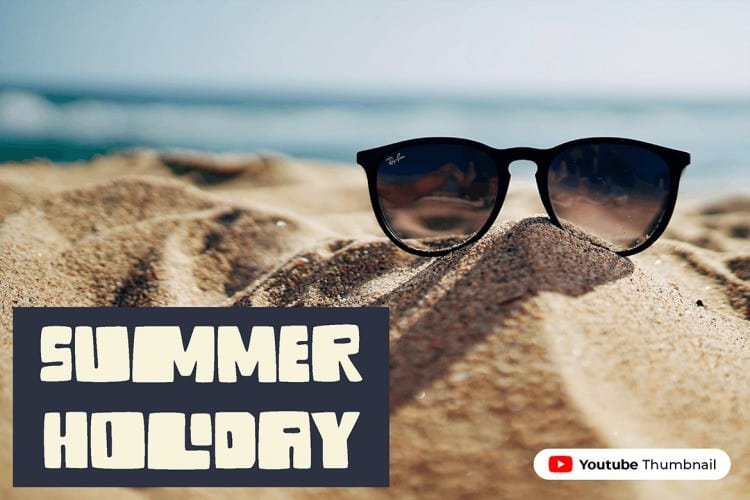
The Tide Display Font is great playful font designed in 2020. It’s a simple playful font with clean lines. Wave sound, wind blows, the rise of the tide, and surfer slicing through the riff.. The energy of rebel and carefree feeling of them, brings The Tide as the main reason to be put on the poster.
Suit perfectly for Surf and Beach theme games, poster, movie title, fast food menu, magazine, youtube covers, youtube thumbnails, social media page covers and so on…
The Tide